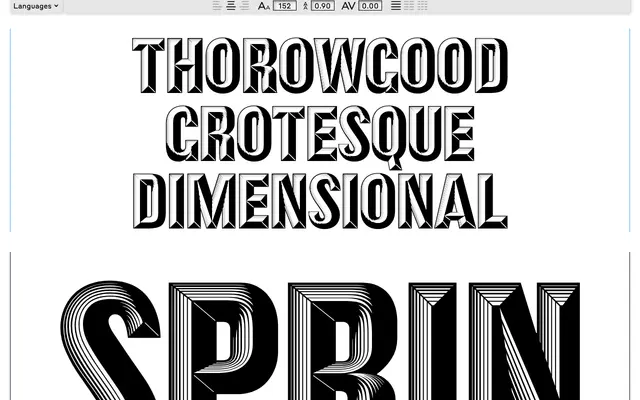
Thorowgood Grotesque Dimensional
The dimensional, three-dimensional shaded cut of Thorowgood Grotesque, sold as a single display style.
A dimensional display style from Commercial Type, drawn as the three-dimensional shaded cut within the Thorowgood Grotesque collection. Sold as a single Regular weight, it is built for posters, packaging and event display where you want a Victorian shadowed sans with depth, set alongside the rest of the Thorowgood Grotesque family for headlines and text.
Commercial Type list Thorowgood Grotesque Dimensional as the dimensional display cut within the Thorowgood Grotesque collection, presented as a single shaded display style.